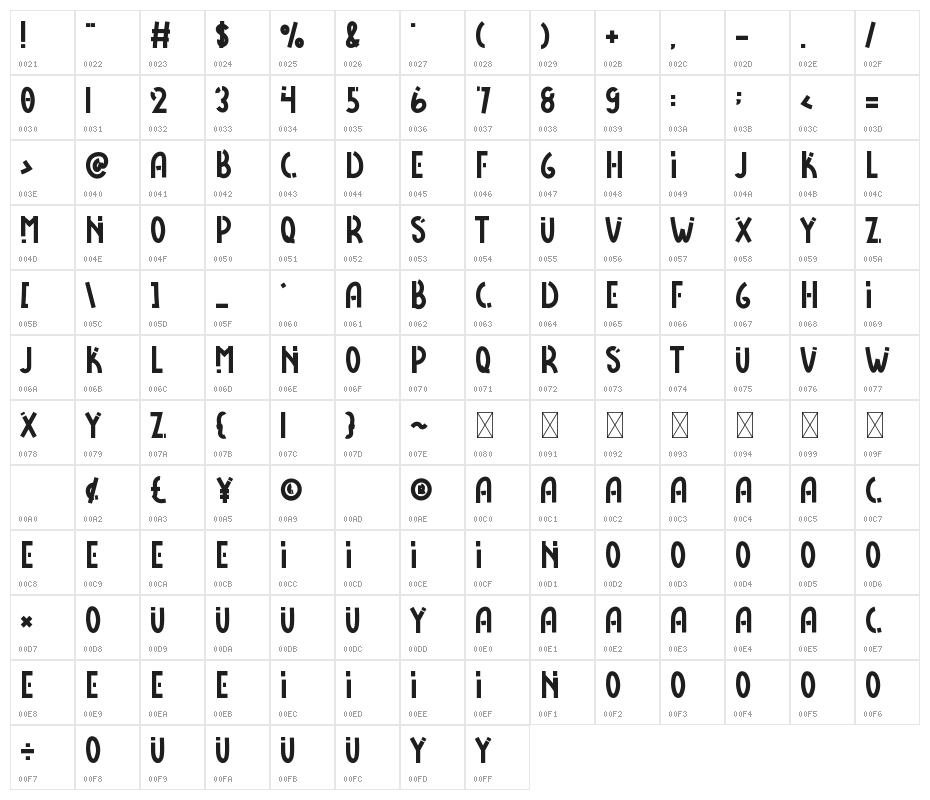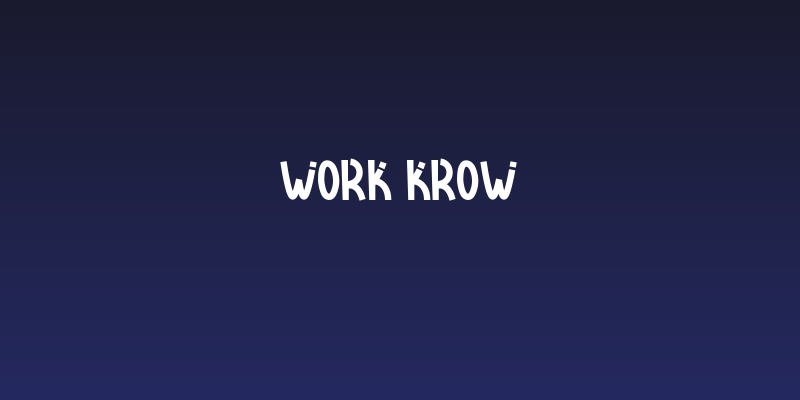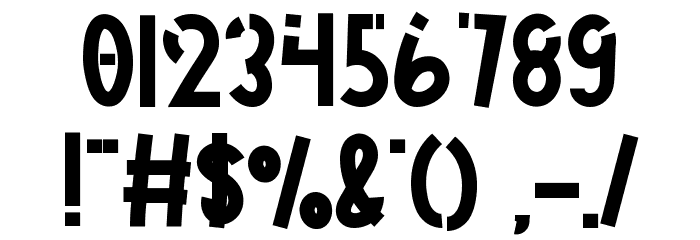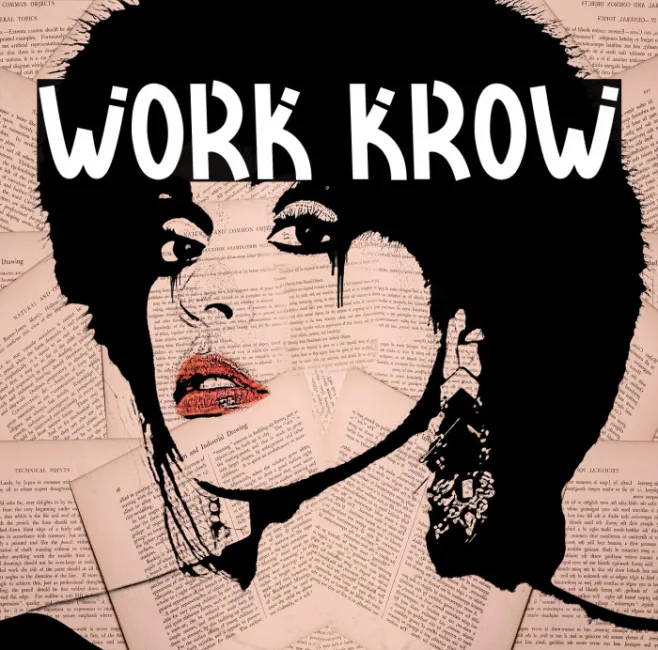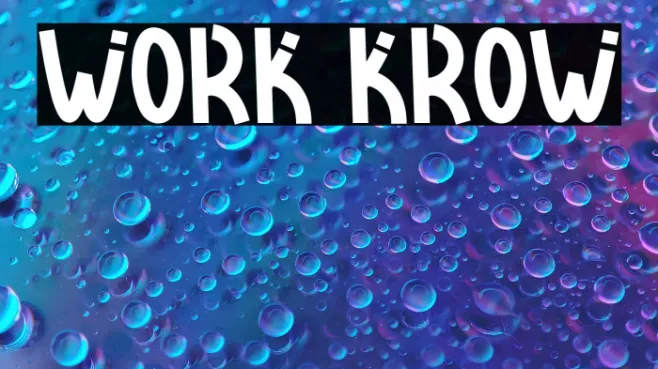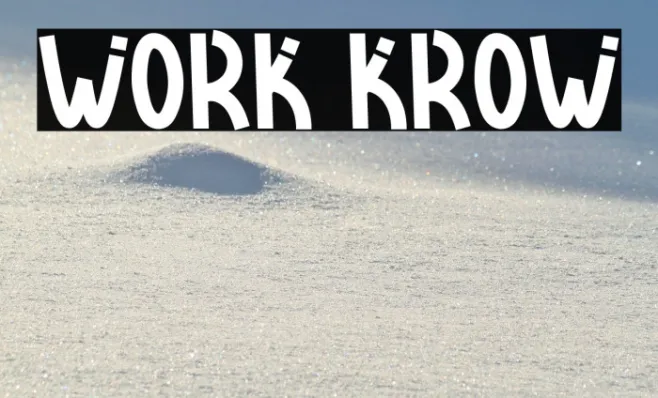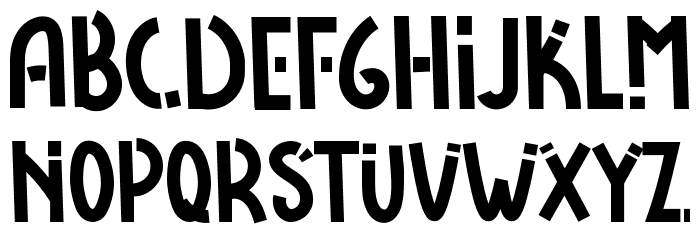
Work Krow Font
Work Krow Description
This font features a bold and playful design with a unique geometric flair. The characters are constructed with a combination of straight lines and curves, giving them a dynamic and modern appearance. The uppercase letters are particularly striking, with some characters incorporating unexpected angles and cuts that add to the font's distinctive style. The lowercase letters maintain a consistent design ethos, ensuring readability while retaining the font's quirky personality. Numbers and special characters are equally bold, making them stand out in any design. This font is ideal for projects that require a touch of creativity and modernity.
| Proposed Projects | Ideal for branding, posters, and creative advertising campaigns. |